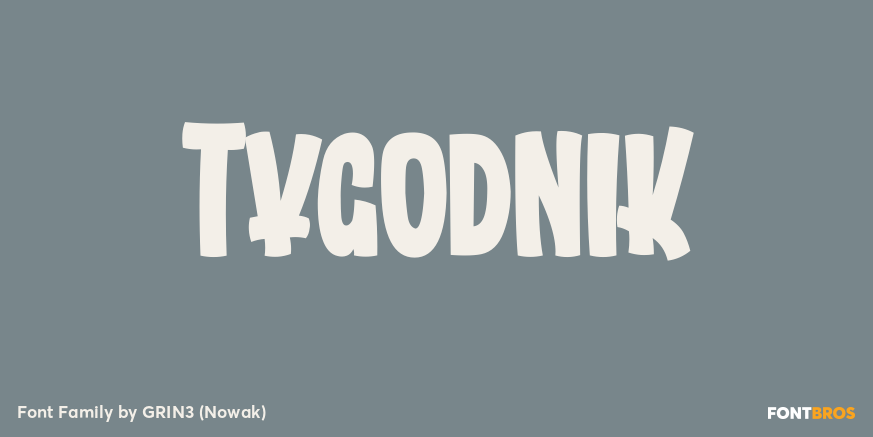
HomeFont BrosRetro (1936-1965)Tygodnik Retro (1936-1965)Urban Tygodnik FacebookXPinterestWhatsApp 1 of 1 About Tygodnik is a font inspired by logo of polish magazine Tygodnik Powszechny. Language support includes Western, Central and Eastern European character sets, as well as Baltic and Turkish languages.  DOWNLOAD ON FONT BROSThis font is sold and delivered by Font Bros. Font Canyon may earn a commission if you buy through this link. People also explored Khanela Font Umbrella Font Chrismast Font Humayra Font Fuixg Great Valentine Font Mavedick Font YWFT Ultramagnetic Green Font 432 0 TagsTygodnik Font Previous articleRetro DreamNext articleShaker LEAVE A REPLY Cancel reply Comment: Please enter your comment! Name:* Please enter your name here Email:* You have entered an incorrect email address! Please enter your email address here Website: Save my name, email, and website in this browser for the next time I comment. Personal Use Free Boldist Personal Use Free Read more about this font Evensong Hollow Personal Use Free Read more about this font Neuropol Personal Use Free Read more about this font Dolce Vita Personal Use Free Read more about this font BLOG Using Fonts in Digital Marketing: Tips to Strengthen Your Brand Identity In the realm of digital marketing, every visual element plays a crucial role in shaping a brand's identity, and fonts are no exception. The... Elegant Wedding Invitation Fonts – Handwritten & Script Fonts How to Install and Use Fonts on Windows, macOS, and Web Projects To increase your work productivity, choose the most readable fonts.